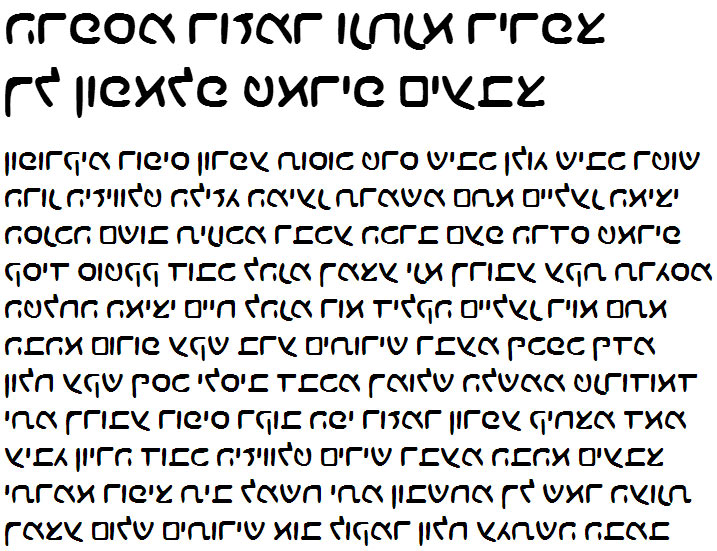
✓ My original handwriting, sketched using a black marker on a white page. Letters have been refashioned in Fontographer to give it a squared appearance, and so there's this weird typeface, that's not entirely squared and yet not entirely cursive, that holds a caricaturistic nature of some kind. This typeface reminded me of something infantile, which is why I named it after the most childish beverage in Israel - "Choco" (Chocolate Milk).
X_Choco Hebrew Font
โœ“ ื›ืชื‘ ื”ื™ื“ ื”ืžืงื•ืจื™ ืฉืœื™, ืžืฉื•ืจื˜ื˜ ื‘ืืžืฆืขื•ืช ื˜ื•ืฉ ืฉื—ื•ืจ ืขืœ ื“ืฃ ืœื‘ืŸ. ื”ืื•ืชื™ื•ืช ืขื•ืฆื‘ื• ืžื—ื“ืฉ ื‘-Fontographer ื›ื“ื™ ืœืชืช ืœื” ืžืจืื” ืžืจื•ื‘ืข, ื•ืœื›ืŸ ื™ืฉ ืืช ื”ื’ื•ืคืŸ ื”ืžื•ื–ืจ ื”ื–ื”, ืฉื”ื•ื ืœื ืœื’ืžืจื™ ืžืจื•ื‘ืข ื•ืขื ื–ืืช ืœื ืœื’ืžืจื™ ืงื•ืจืกื™ื‘ื™, ืฉื™ืฉ ืœื• ืื•ืคื™ ืงืจื™ืงื˜ื•ืจื™ืกื˜ื™ ืžืกื•ื’ ื›ืœืฉื”ื•. ื”ื’ื•ืคืŸ ื”ื–ื” ื”ื–ื›ื™ืจ ืœื™ ืžืฉื”ื• ืื™ื ืคื ื˜ื™ืœื™, ื•ืœื›ืŸ ืงืจืืชื™ ืœื• ืขืœ ืฉื ื”ืžืฉืงื” ื”ื›ื™ ื™ืœื“ื•ืชื™ ื‘ื™ืฉืจืืœ - "ืฉื•ืงื•" (ื—ืœื‘ ืฉื•ืงื•ืœื“).